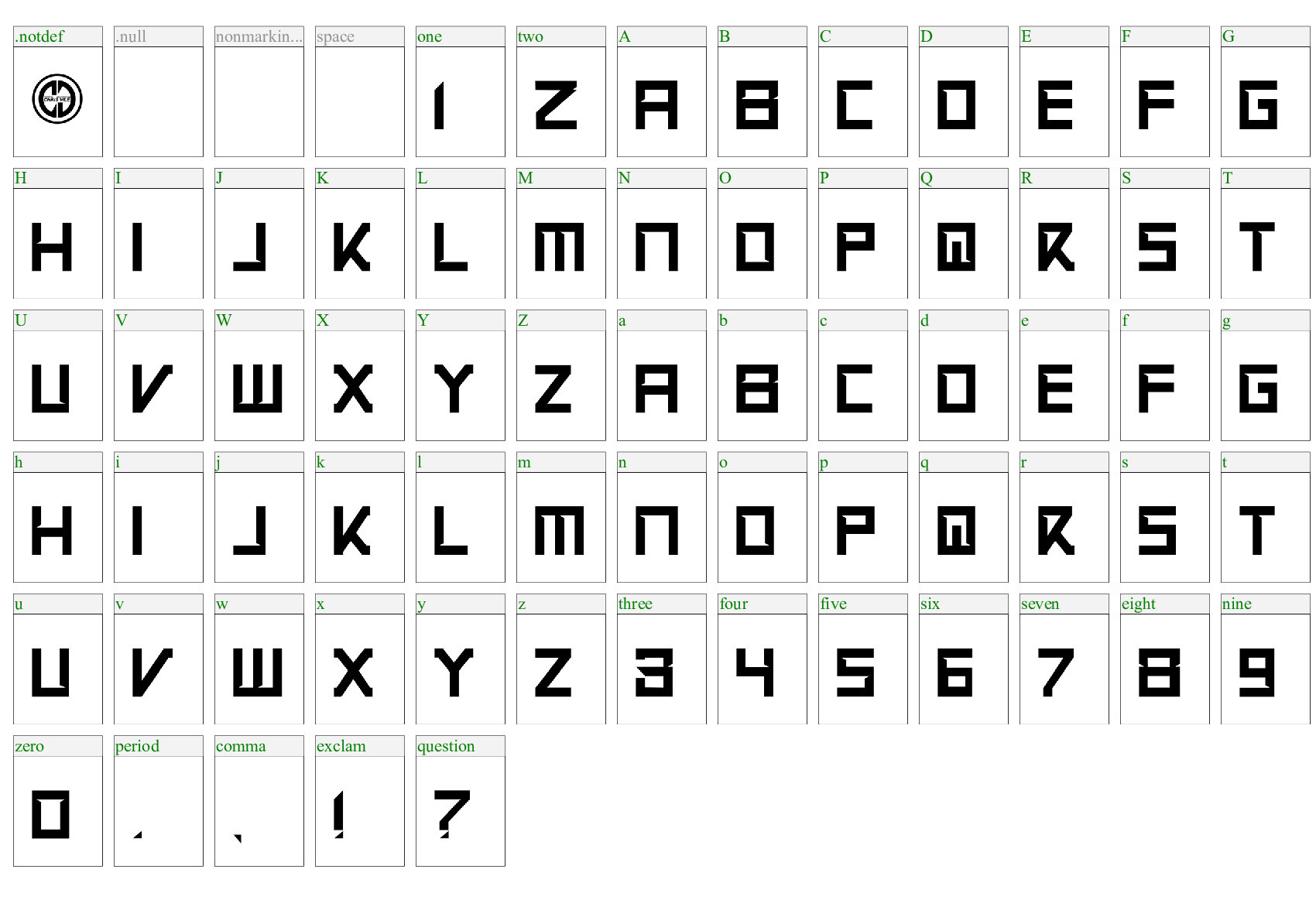
Apex Flunkee: A bold and futuristic square font, inspired by the world of science fiction. Its clean lines and sharp angles evoke the sleek and high-tech feel of advanced alien civilizations, while its blocky letters convey a sense of stability and confidence. Ideal for creating designs for sci-fi movies, video games, and other projects that explore the outer reaches of the imagination, Apex Flunkee font is sure to bring a sense of otherworldly wonder to any project.
Lowercase: Same as uppercase
Theme: Square, Techno, Sci-fi